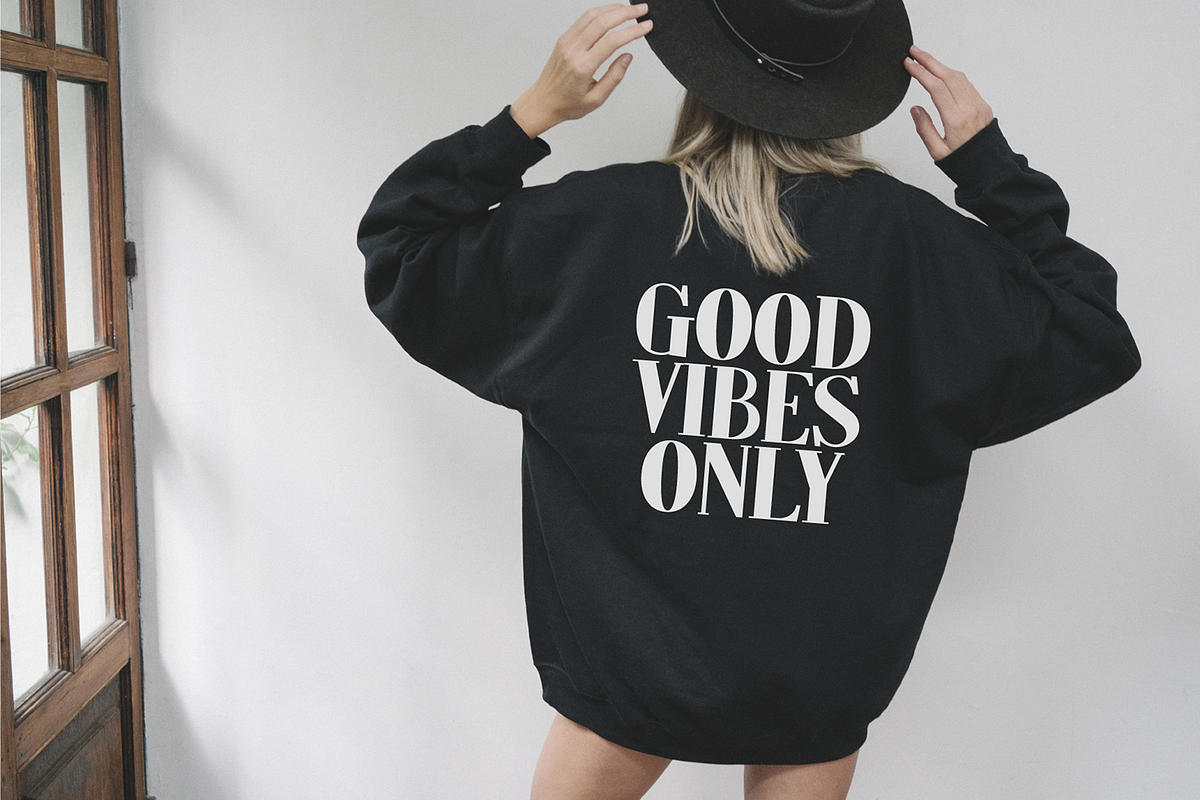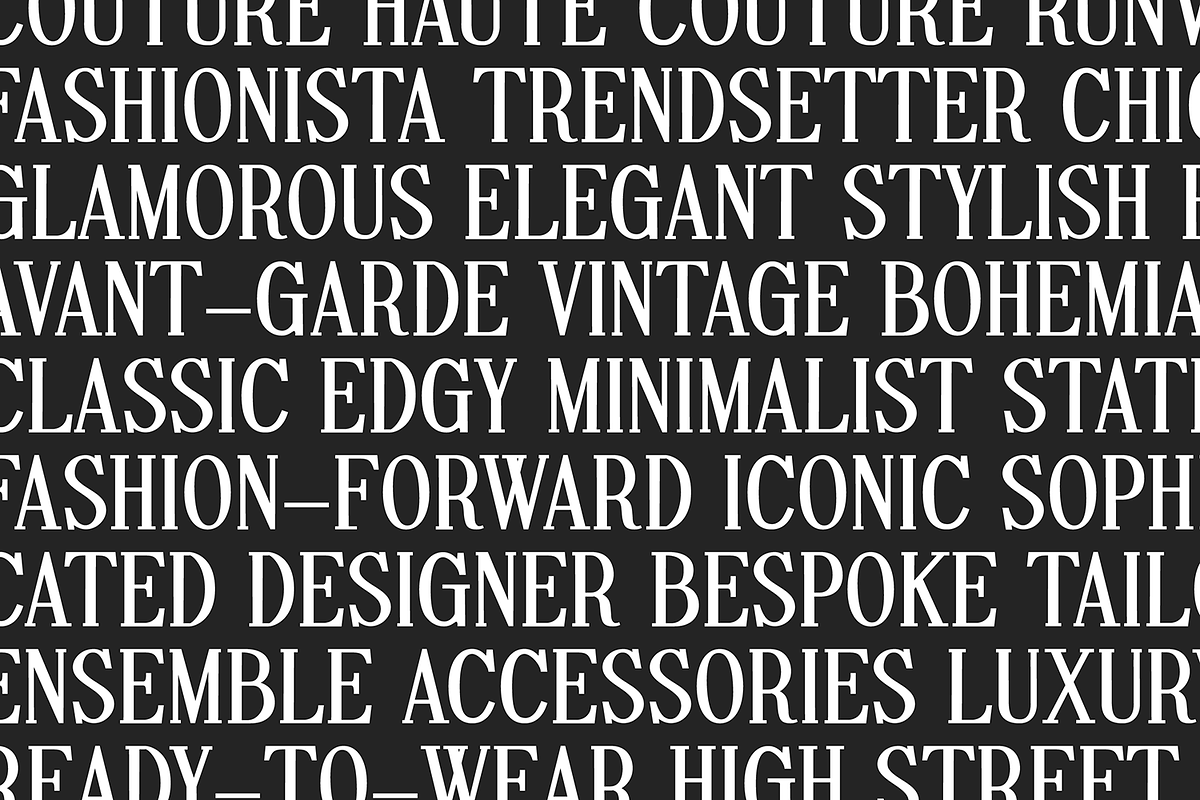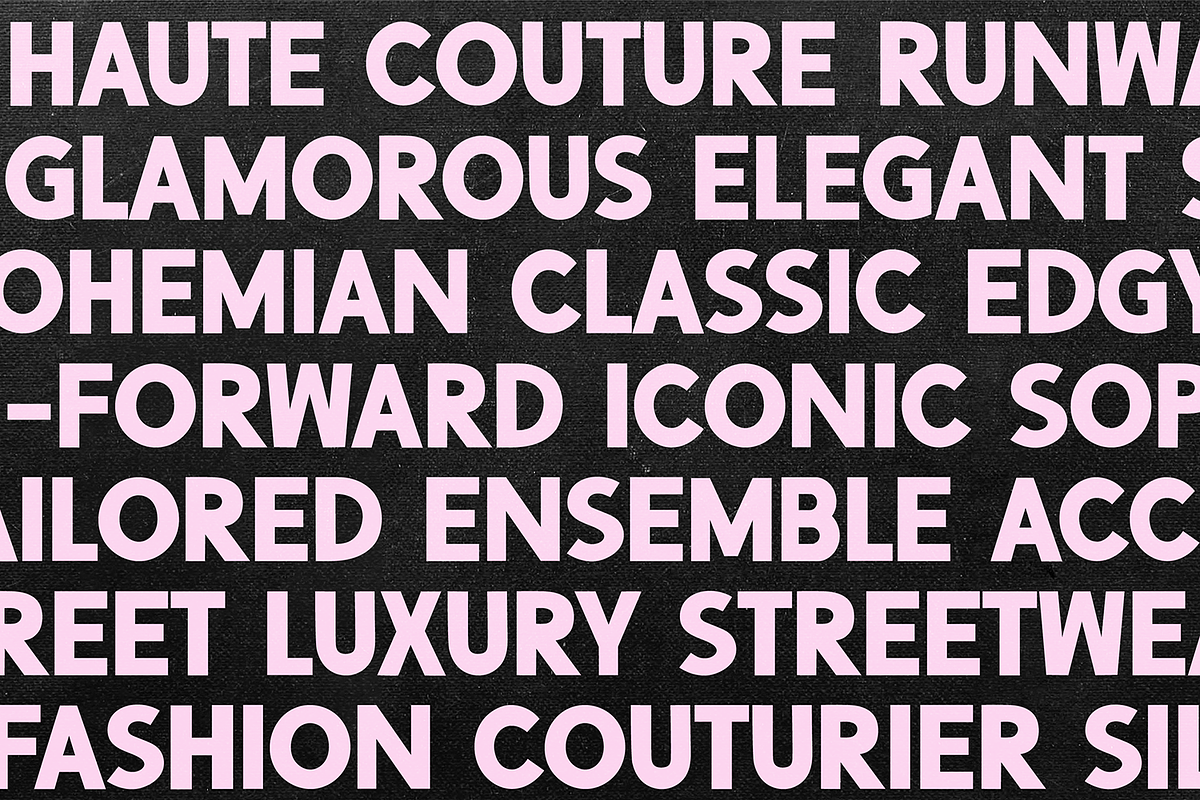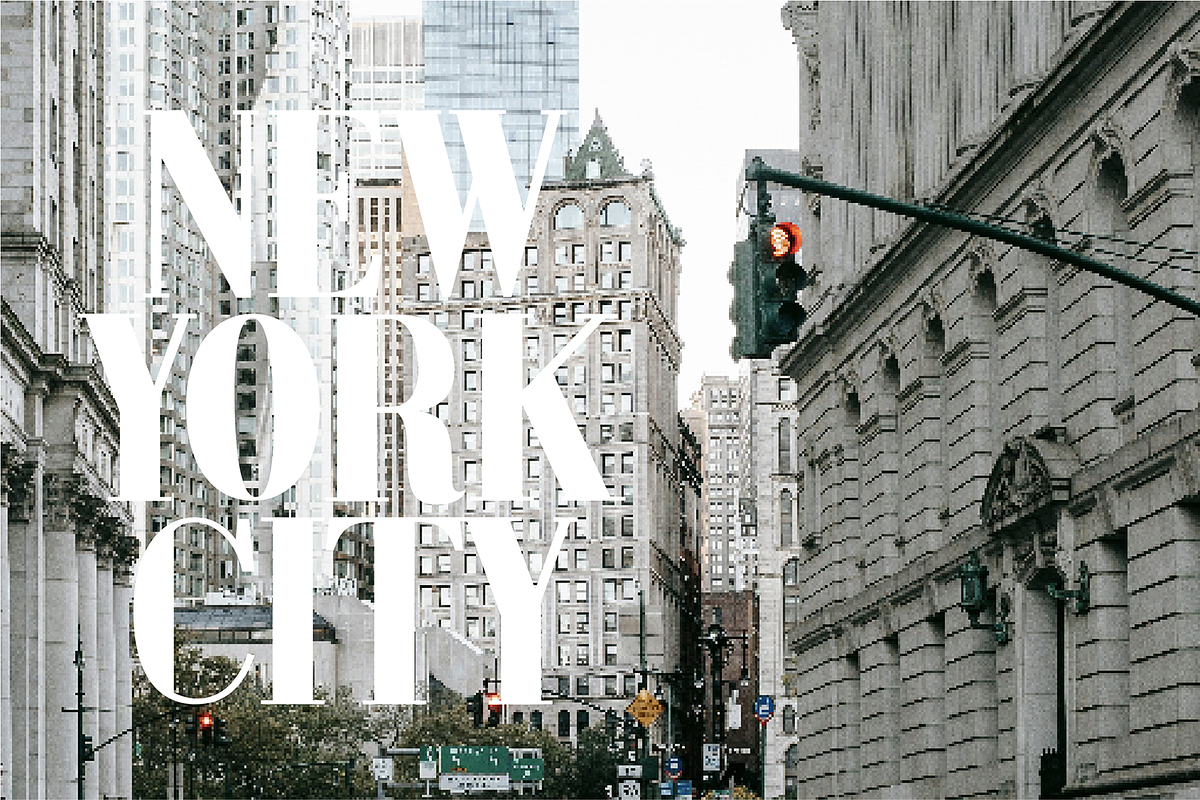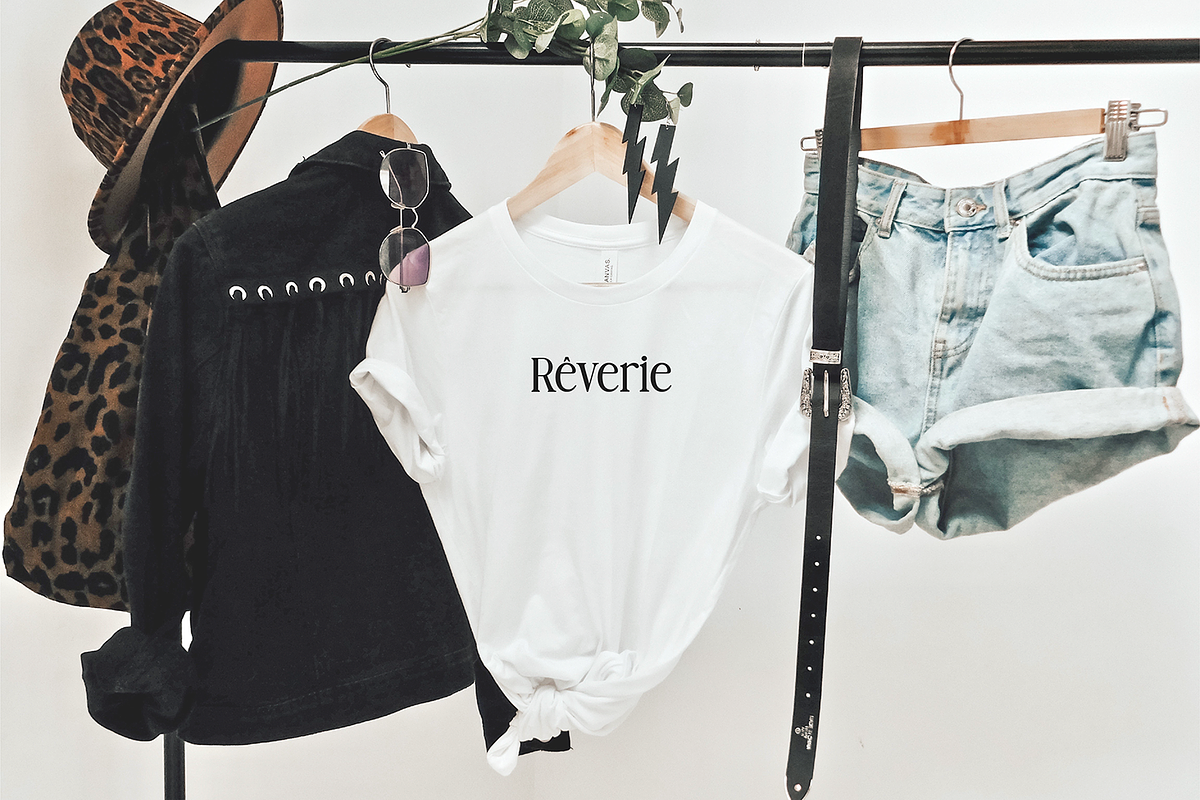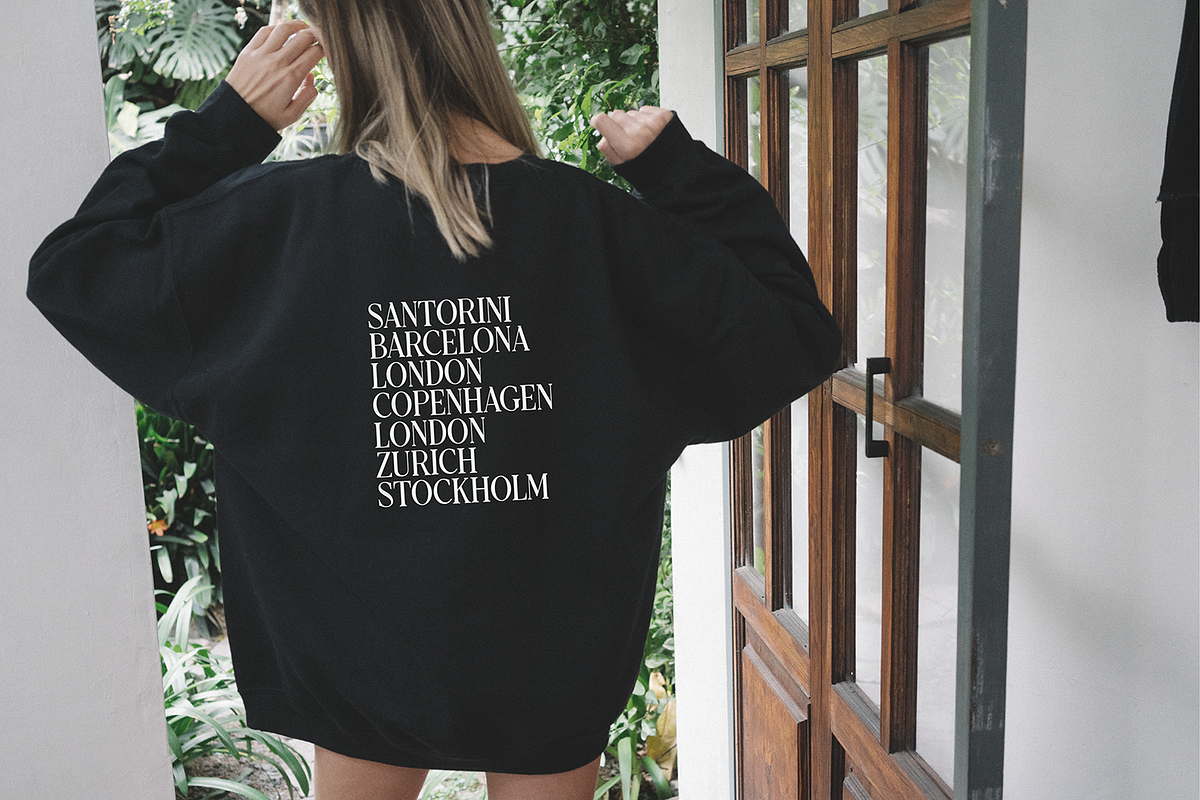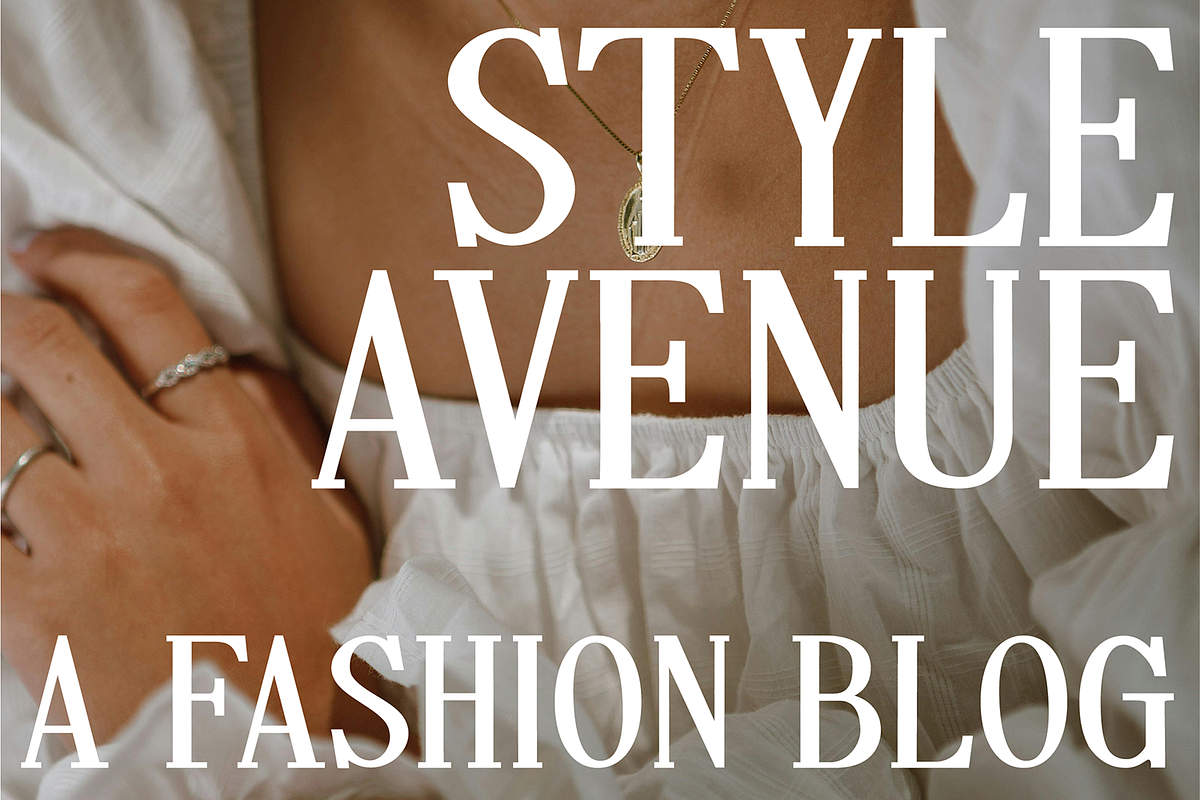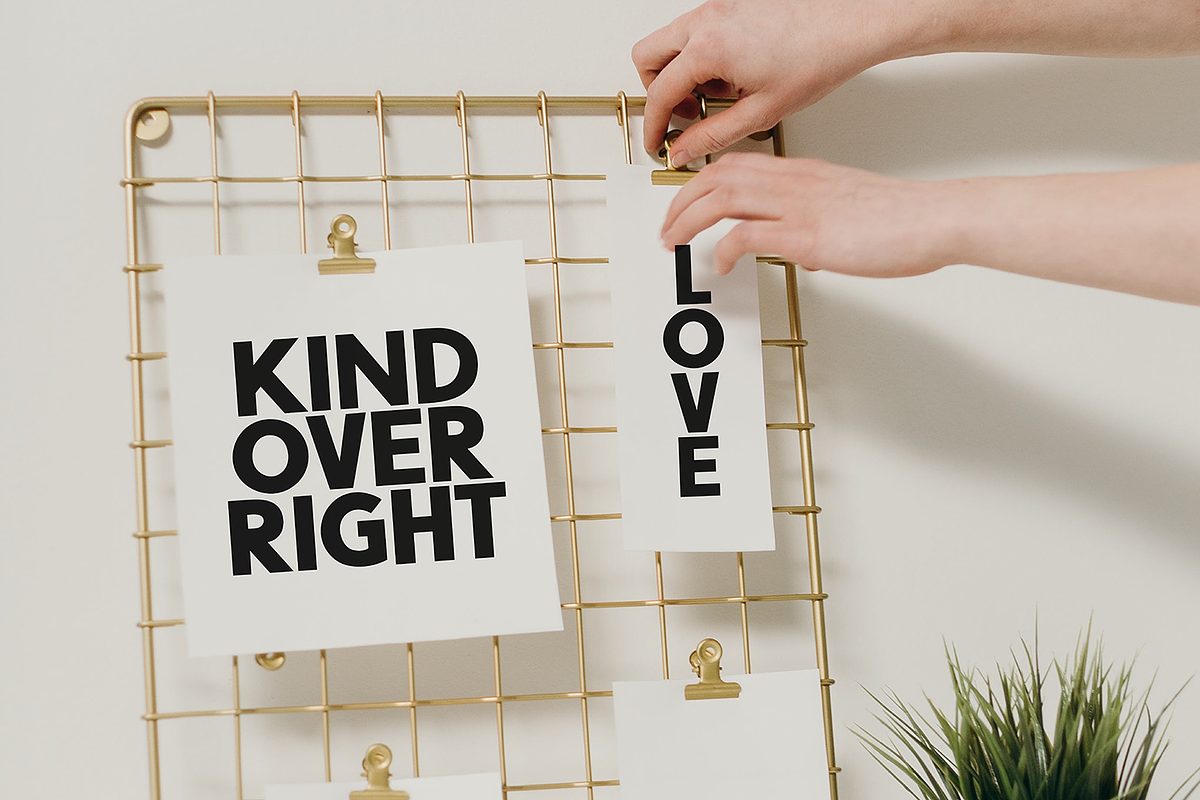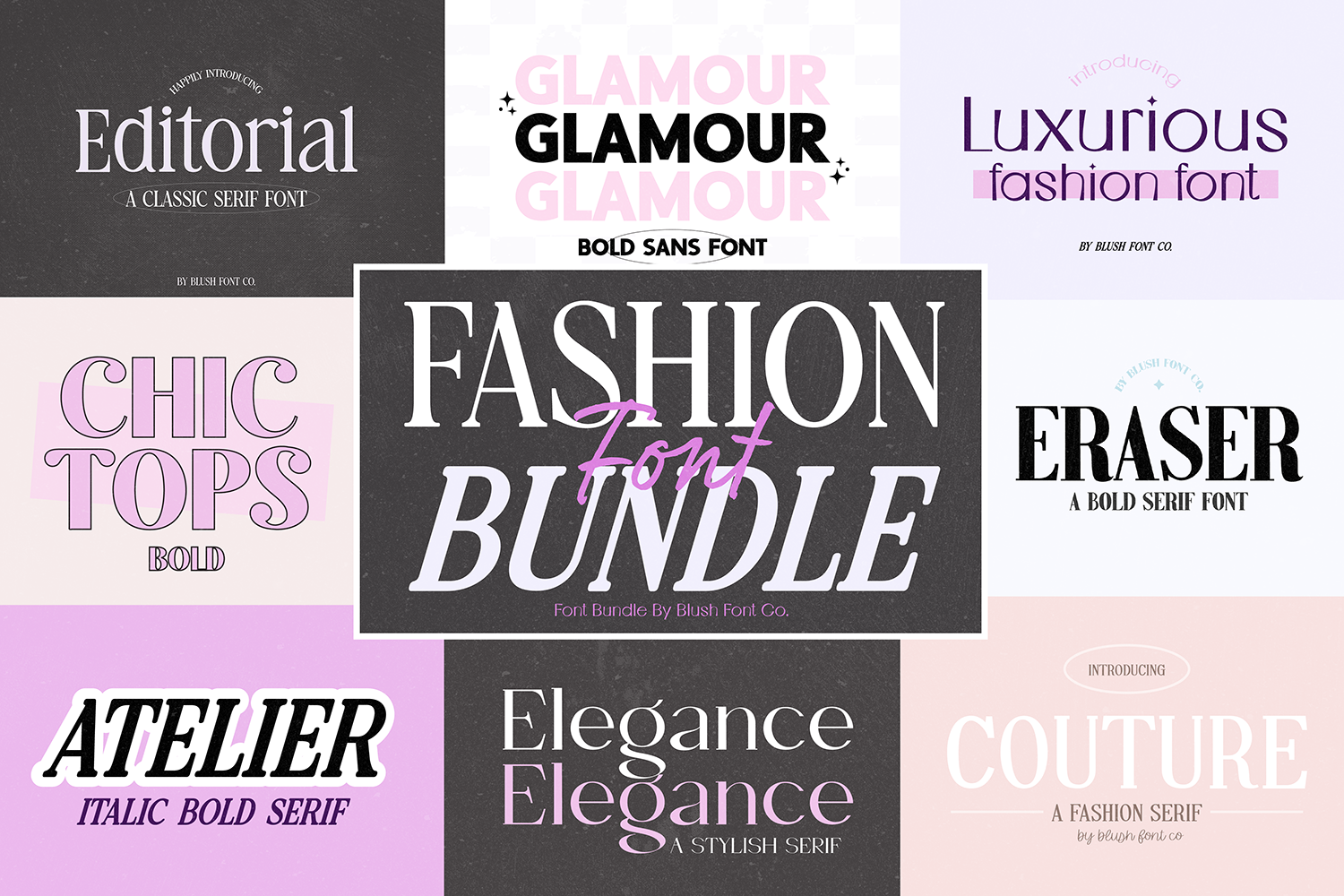
FASHION DISPLAY FONT BUNDLE
FASHION FONT BUNDLE - 8 Fonts!
This font bundle is elegant and full of style! These trendy fonts are perfect for invitations, t-shirt design, birthday parties, procreate, weddings, cricut, and more! This bundle is a mix of bold, serif, and sans serif display fonts.